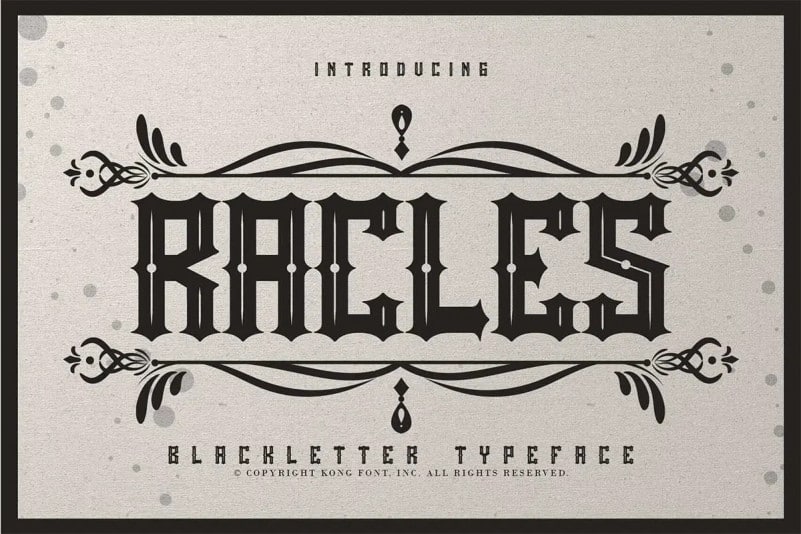
Hello friend. Introducing Rackles Blackletter Font, an incredibly authentic and daring blackletter font. This typeface is designed and shared by fontkong. Add this font to your favorite creative ideas and notice how it makes them stand out!. This font is ideal for calligraphic sketches, tattoos or for imitation of ancient manuscripts.